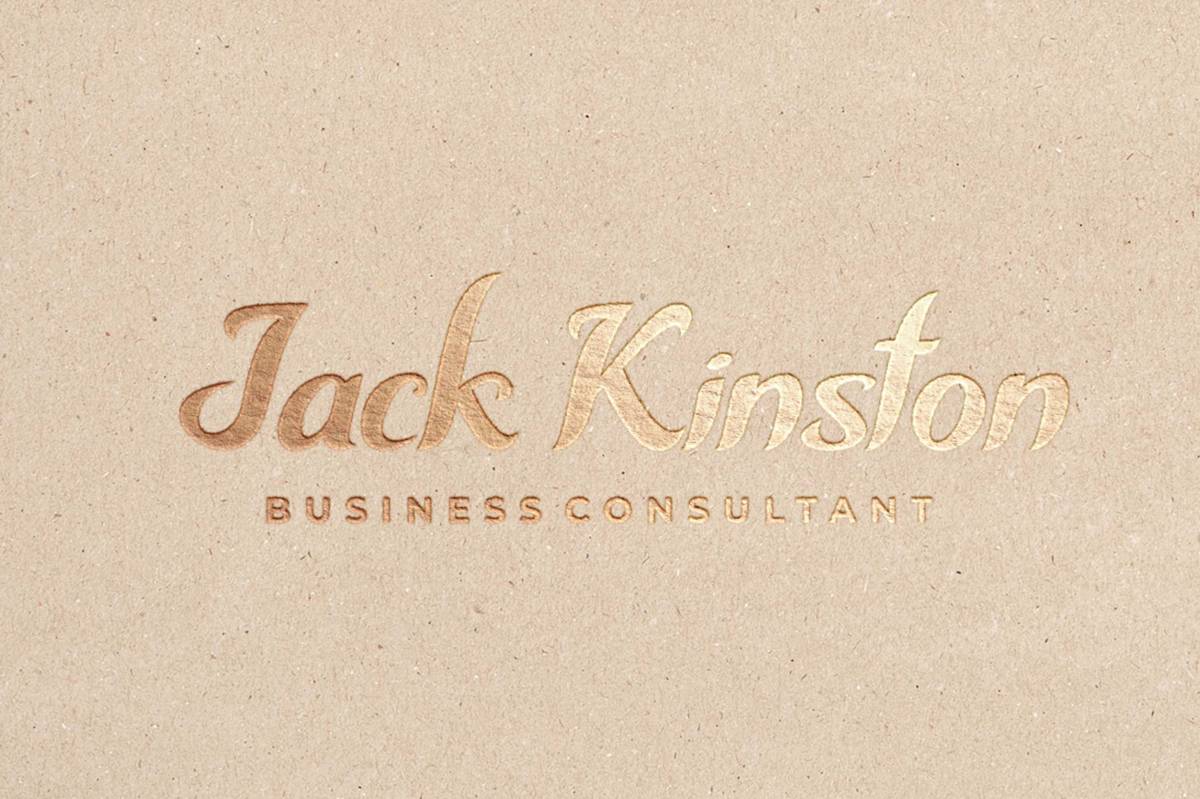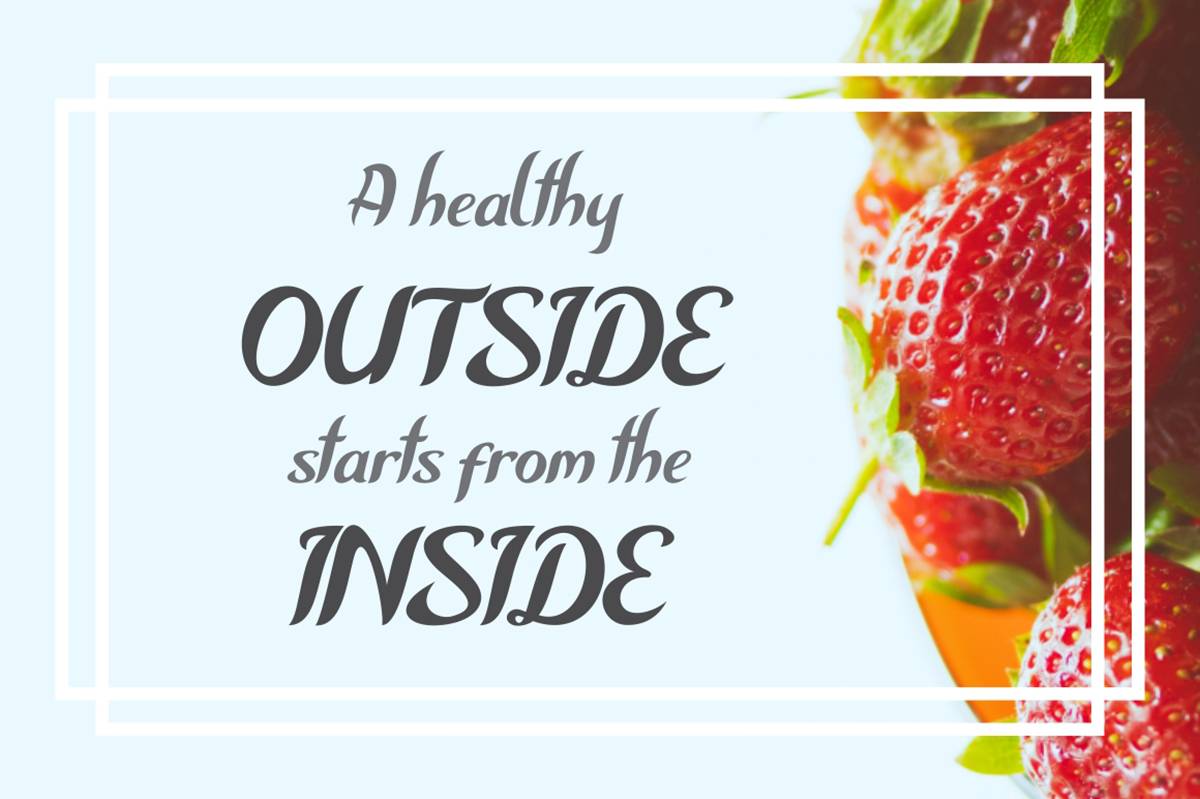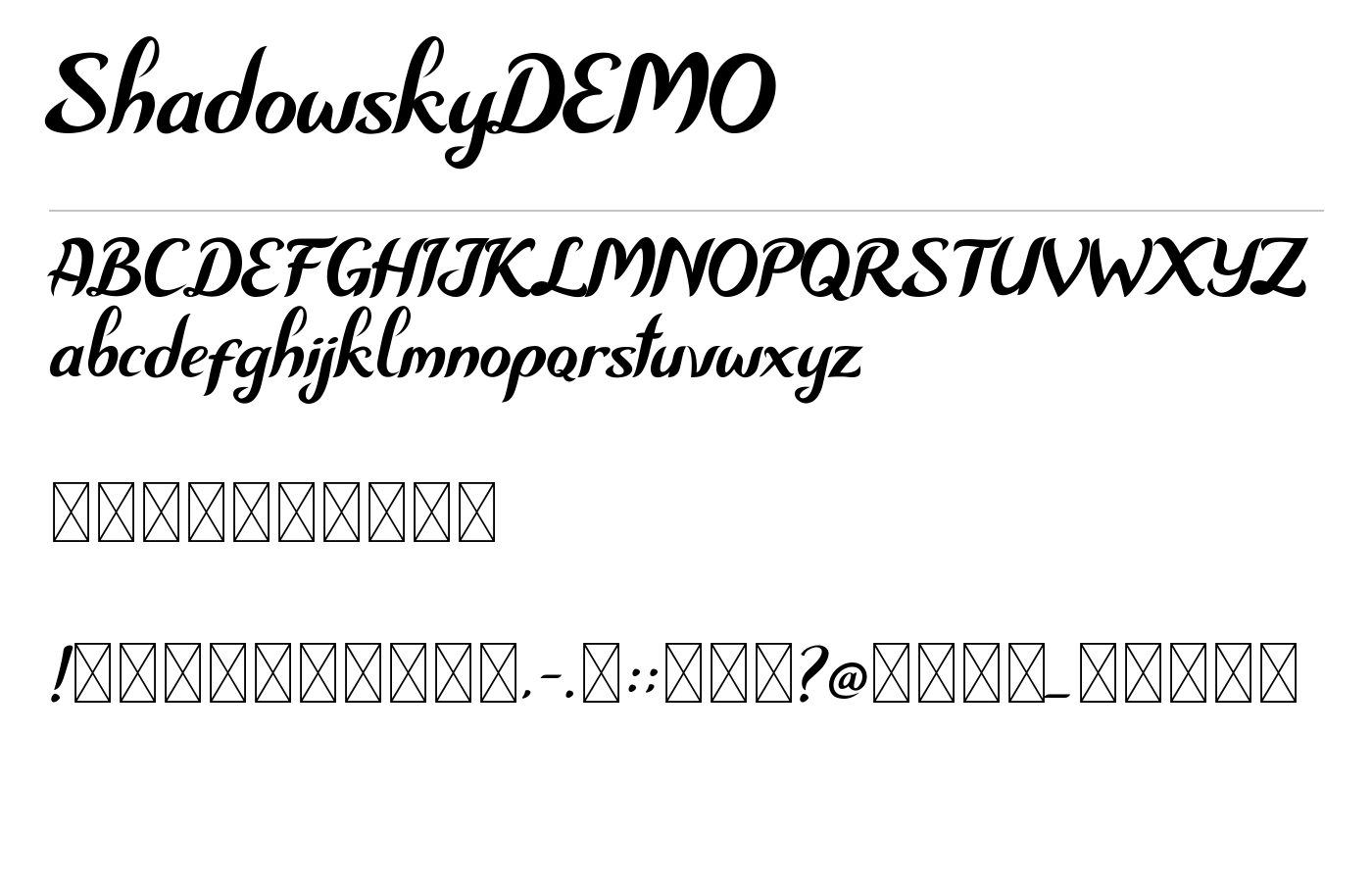
Shadowsky is a stylish script font with smooth, flowing strokes and a medium weight that gives it a graceful yet approachable feel. Its elegant curves and distinct letterforms make it ideal for branding, invitations, and headlines where a touch of sophistication and personality is desired. This font brings a timeless charm that works well in fashion, luxury, and creative projects seeking a refined but friendly tone.
Shadowsky Font
About Shadowsky Font